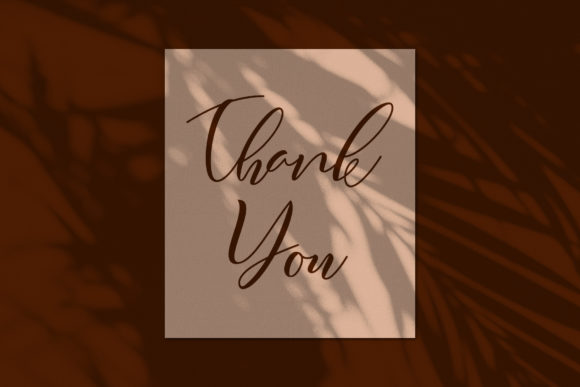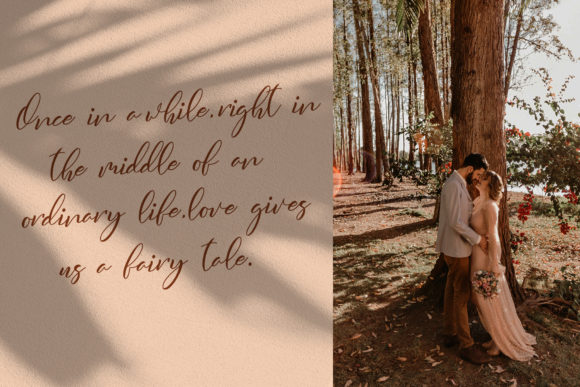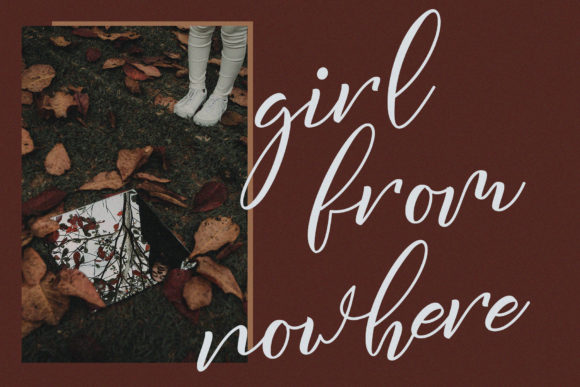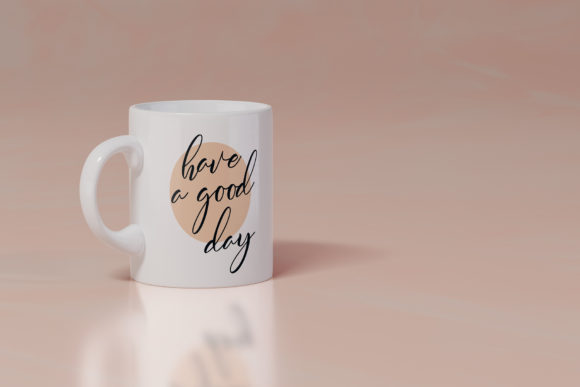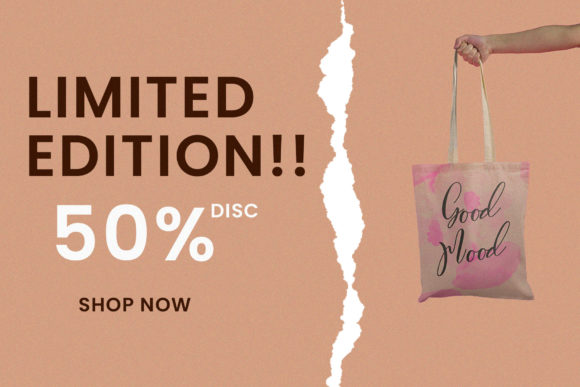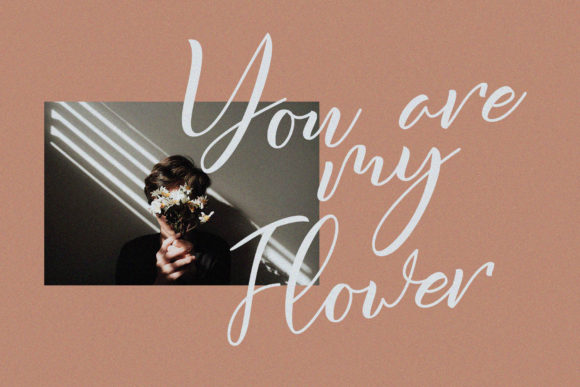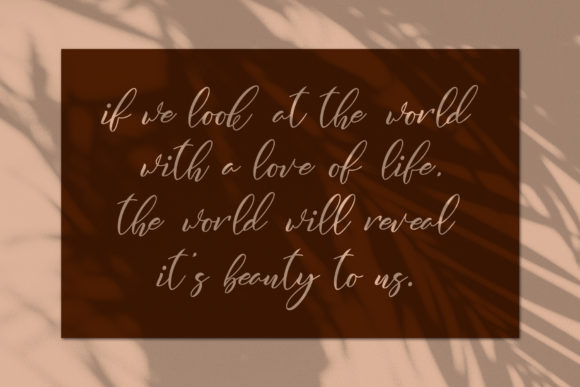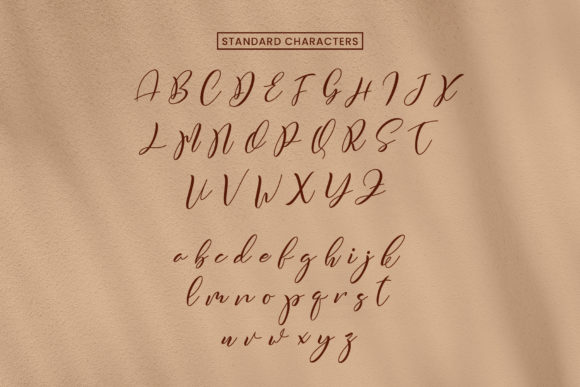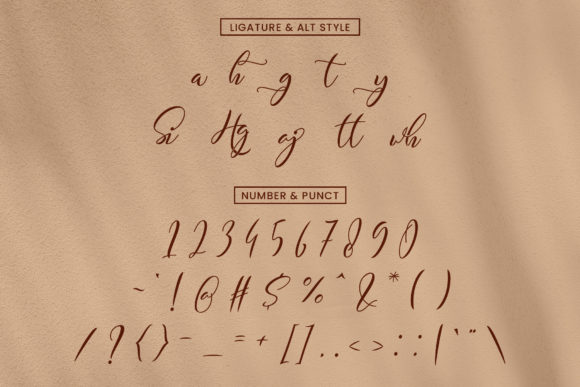
Qasky Font
About Qasky Font
Qasky is an exquisite script font with a beautiful, refined, and modern look. Its carefully crafted letterforms and elegant strokes make it a versatile choice for a wide range of design projects.
When it comes to logos and branding, Qasky adds a touch of sophistication and elegance. Its sleek lines and stylish flourishes make it perfect for creating a memorable and visually appealing brand identity. Whether you’re designing a logo for a luxury brand, a high-end product, or a creative business, Qasky can elevate your design and leave a lasting impression.
For invitations and stationery, Qasky brings a sense of elegance and refinement. Whether it’s wedding invitations, event announcements, or formal correspondence, Qasky’s modern and classy look adds a touch of sophistication to your designs. Its smooth and flowing strokes create a sense of grace and beauty, making it ideal for capturing the attention of your recipients.
Qasky is also a great choice for wedding designs. Its elegant and modern style enhances the romantic atmosphere and adds a luxurious touch to wedding invitations, save-the-date cards, and other wedding-related materials. The versatility of Qasky allows it to adapt to various wedding themes, whether it’s classic, contemporary, or whimsical.
When it comes to social media posts and graphics, Qasky stands out with its stylish and eye-catching appearance. Whether you’re designing Instagram quotes, Facebook banners, or Pinterest graphics, Qasky’s modern and refined look will make your content visually appealing and shareable. Its legible letterforms and elegant curves ensure readability and captivate the audience’s attention.
Qasky is designed to be versatile and suitable for both print and digital media. Its clear and well-balanced letterforms make it perfect for headlines, body text, and captions. Whether you’re creating business cards, brochures, posters, or website designs, Qasky’s classy and modern style will elevate the overall aesthetic and visual impact of your designs.
In summary, Qasky is a beautiful and refined script font with a classy, elegant, and modern look. Its versatility makes it suitable for various design projects, including logos, branding, invitations, stationery, wedding designs, social media posts, and more. With Qasky, you can add a touch of sophistication and contemporary style to your designs, leaving a lasting impression on your audience.